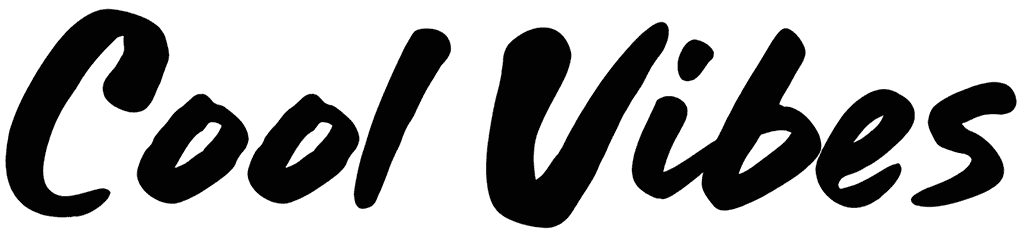
Cool Vibes Font
Cool Vibes can give a handwritten illusion to your words, which makes your design a nice vision. This 80s font has a curly and continuous character style, made with brush effects, and it will convey a summary and friendly look to your reader.
You can use this font for movie and book titles, show and play posters and flyers, shop signs, and product packaging. This font does not have a punctuational set.